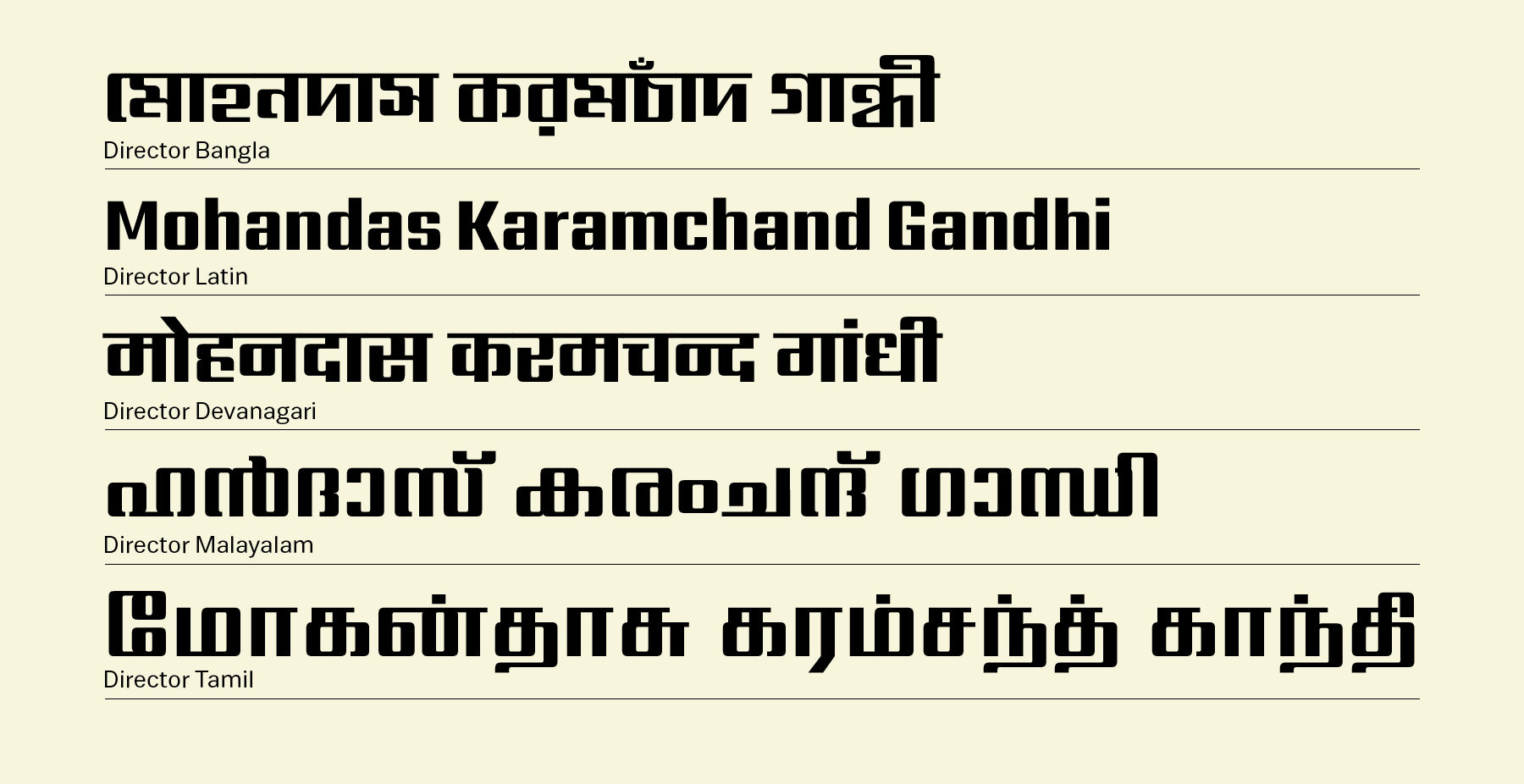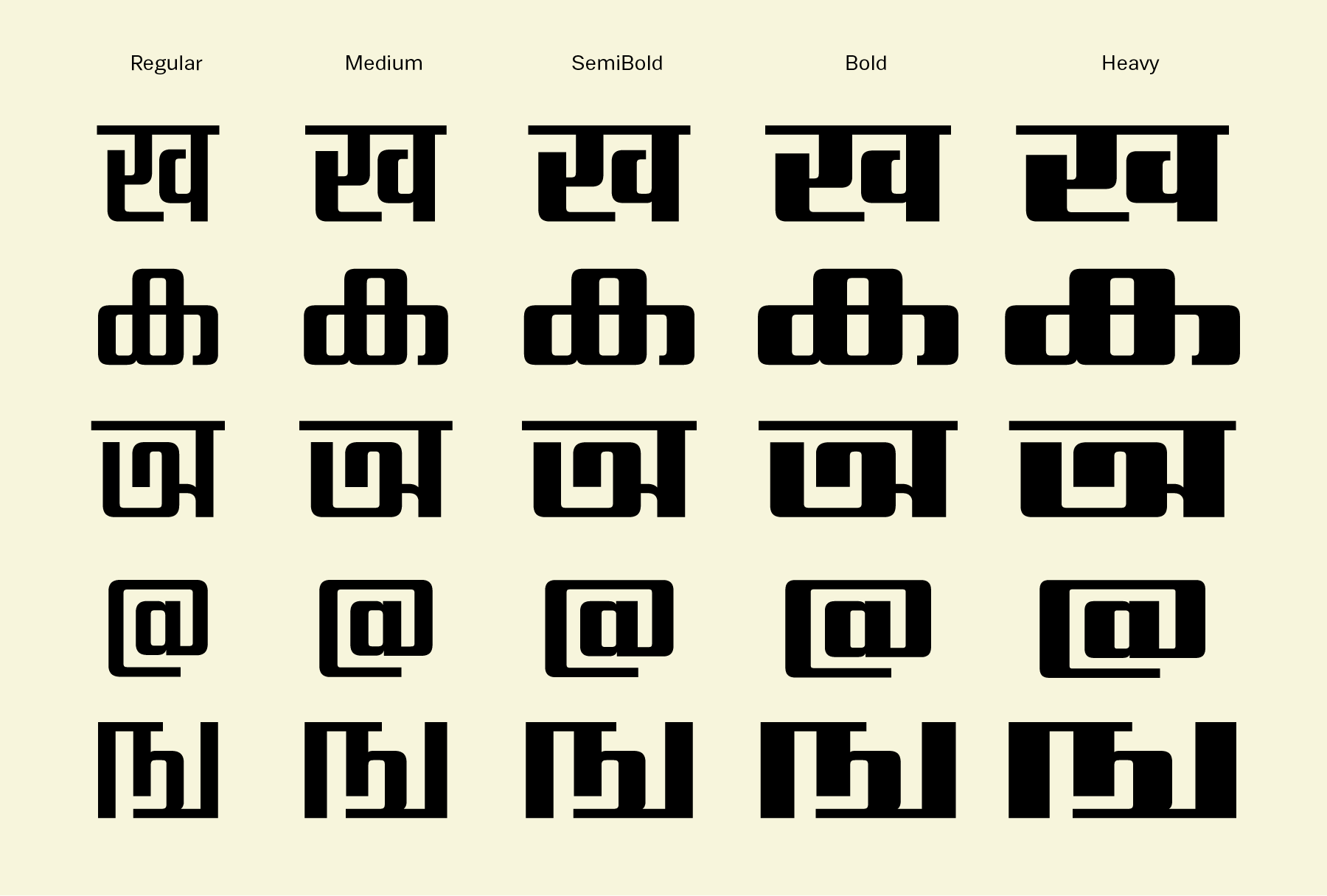
Display families with extensive character sets are rare for any script. With Indian typefaces, large character sets are often even less common. The Indian Type Foundry’s designs have been an exception, however. We are pleased to continue this trend with the Director multi-script series.
Director includes sub-families for five writing systems: Bengali, Devanagari, Latin, Malayalam, and Tamil. These typefaces are designed for use in large sizes. They bears some similarity with our Akhand design, but Director’s various families feature letterforms with more stroke contrast, squarer proportions, and a structure that appears more visually simple.
Five fonts have been produced for each of the script families, ranging from Regular to Heavy in weight. As weight increases along a family’s axis, the vertical strokes become thicker. However, the typeface’s horizontal strokes retain the same thickness across. So while the Regular weight of each family looks almost monolinear, the Heavy weight has very high stroke contrast.
The Regular, Medium and Semibold fonts in the Director families are recommended for use in long headlines, while Bold and Heavy are intended primarily for setting single words or pairs. At display sizes, Director’s fonts work equally well on screen or in print. Director is an excellent choice for use in advertising or for news tickers on television screens (breaking news, etc.).
Each font in the Director Devanagari family contains 776 glyphs and offers full support for all the conjuncts and ligatures required by languages written in the Devanagari script. The same is true for each Bengali font, which contain 478 glyphs. Malayalam and Tamil fonts have character sets of 400 and 269 glyphs each, respectively, and the Director Latin fonts each have 379 glyphs in their character sets.
The simplified graphic language of the Director series has precedence in many typefaces designed during the mid-20th century, including Aachen, Bank Gothic, or Eurostile. When mixing the Director variants with other typefaces, questions such as serif or sans serif are less relevant than the amount of stroke contrast present in the other font, or whether its stroke endings terminate in similar ways.
Tapas Basak and Jyotish Sonowal designed the Director Bengali family. The Director Devanagari and Latin families are from Manushi Parikh, while Nikhil Ranganathan designed Director Malayalam and Director Tamil. ITF released the Director multi-script series in February 2015.